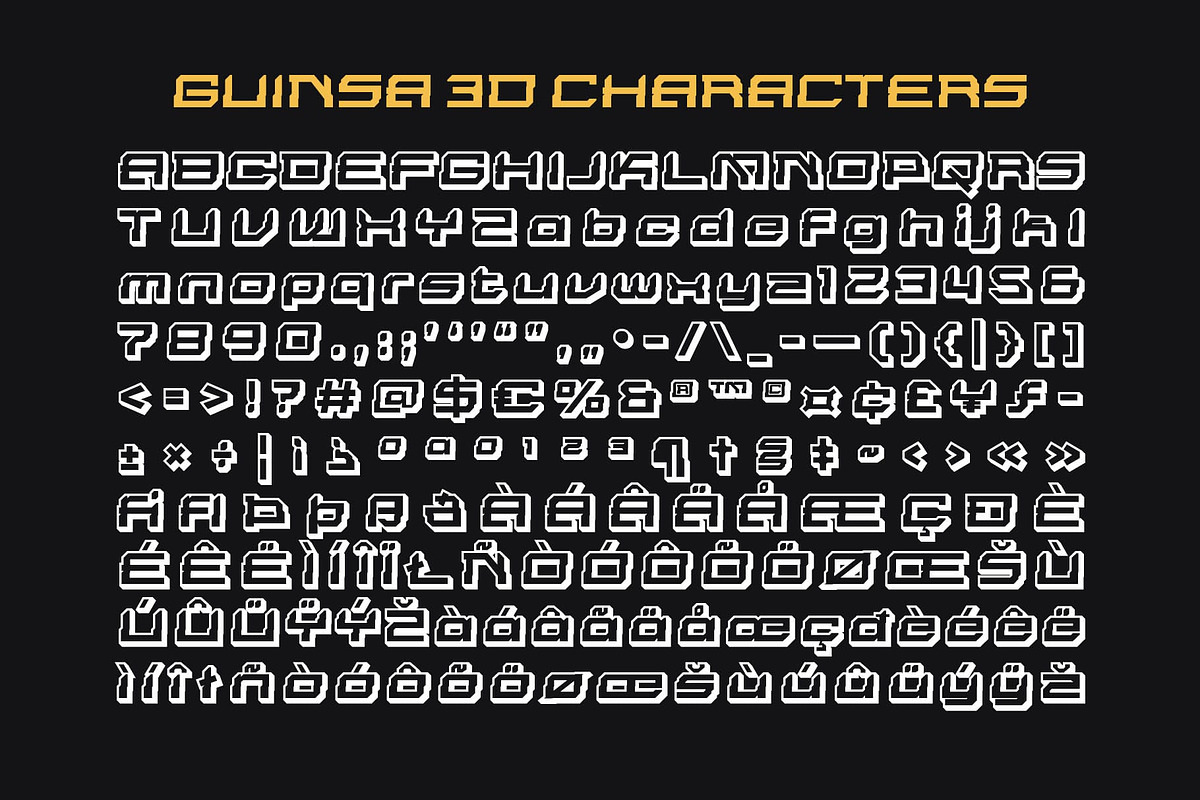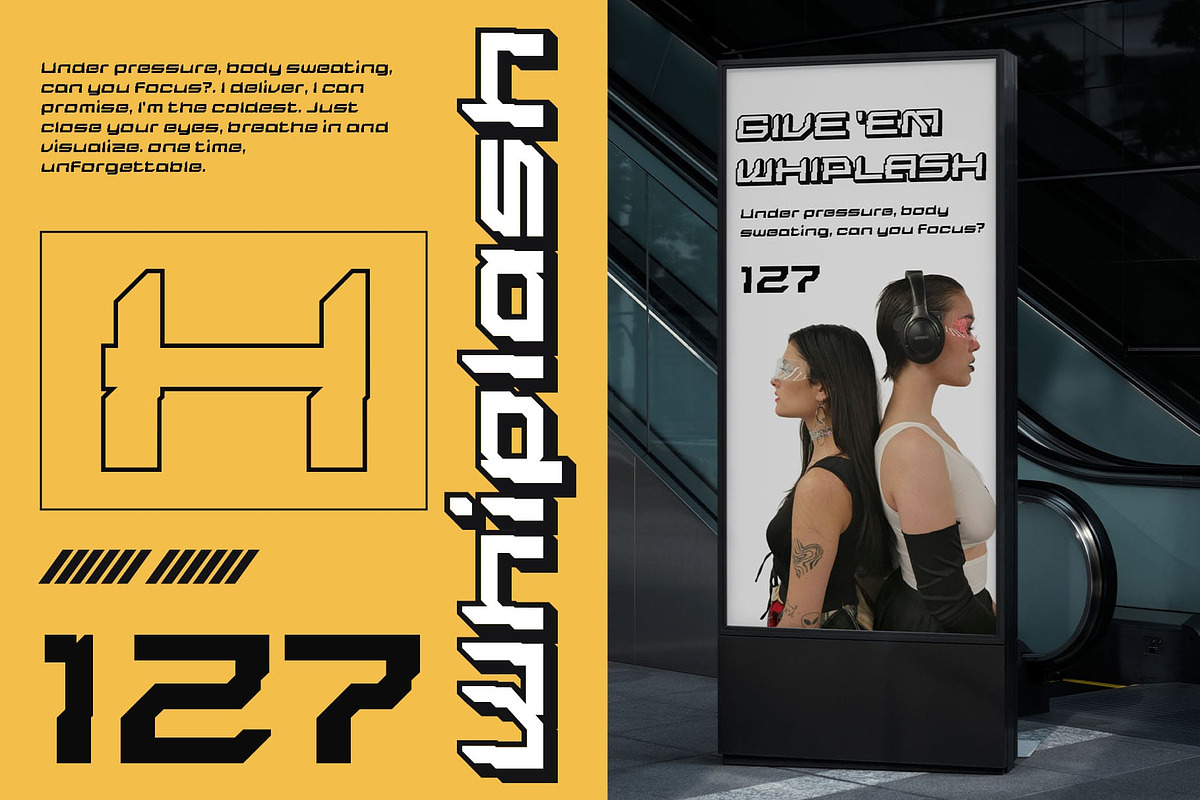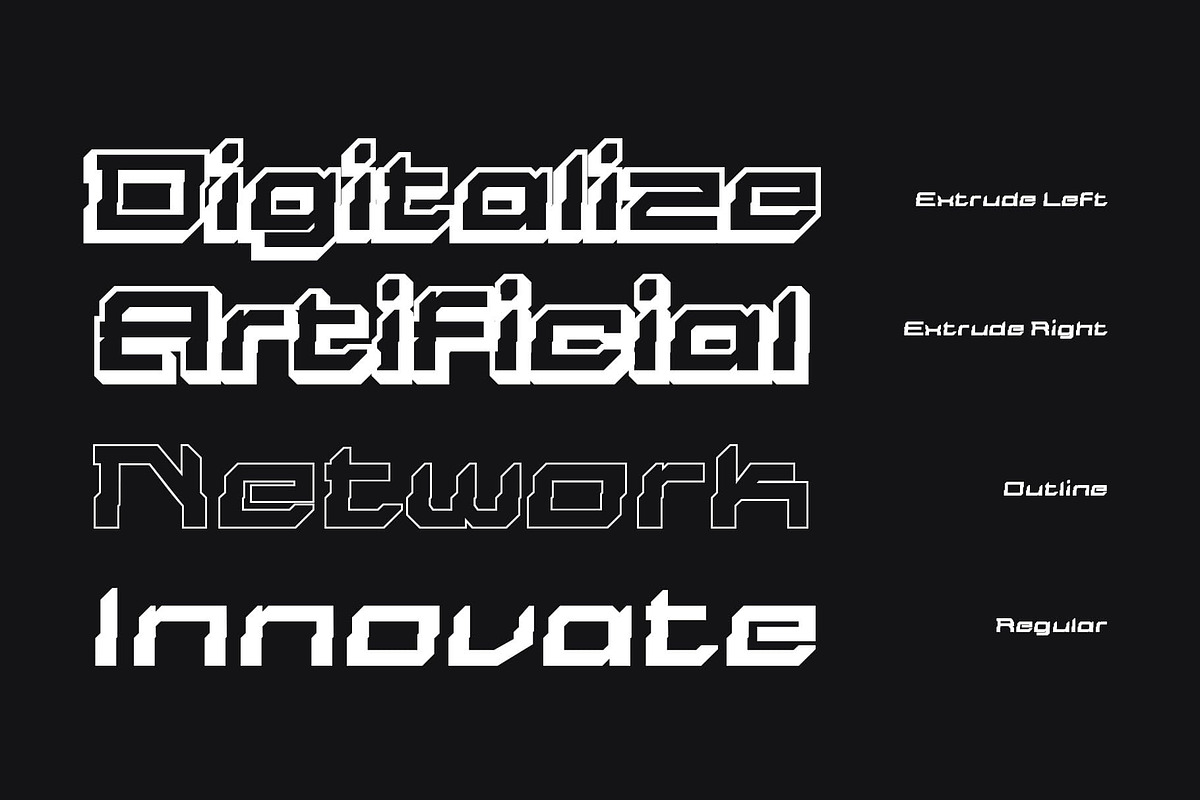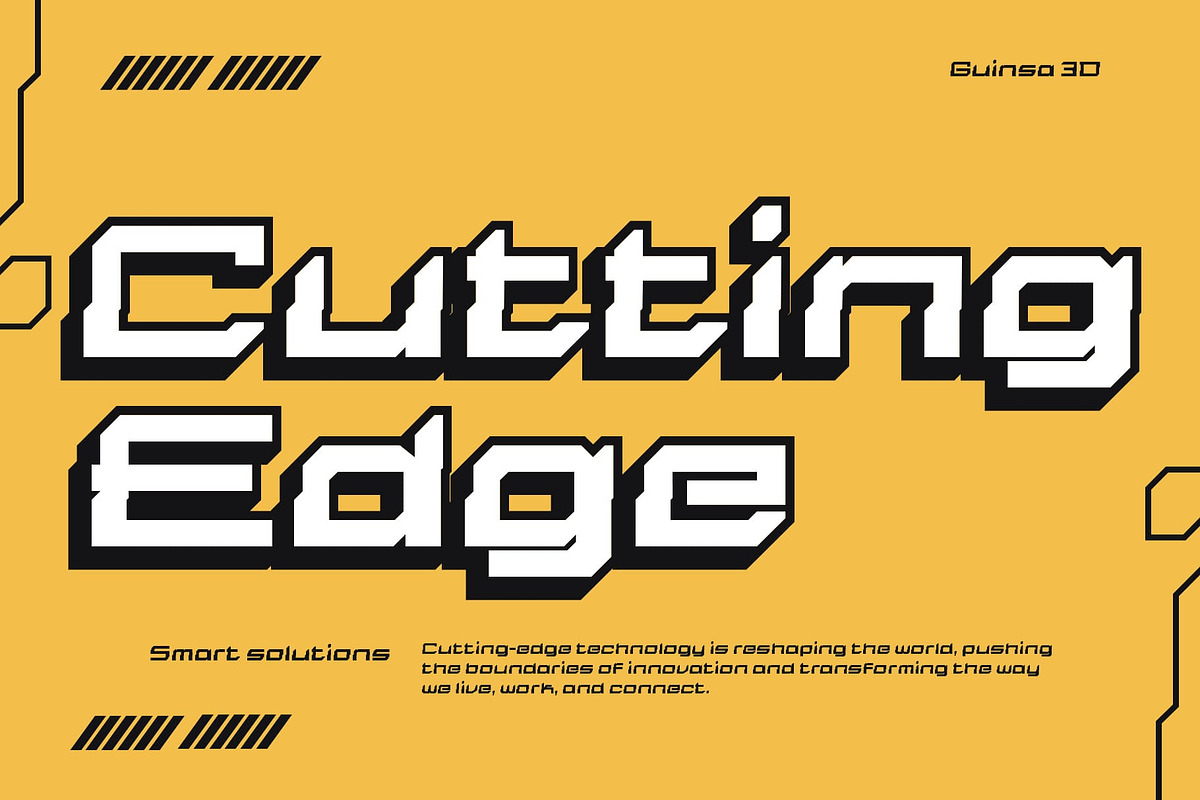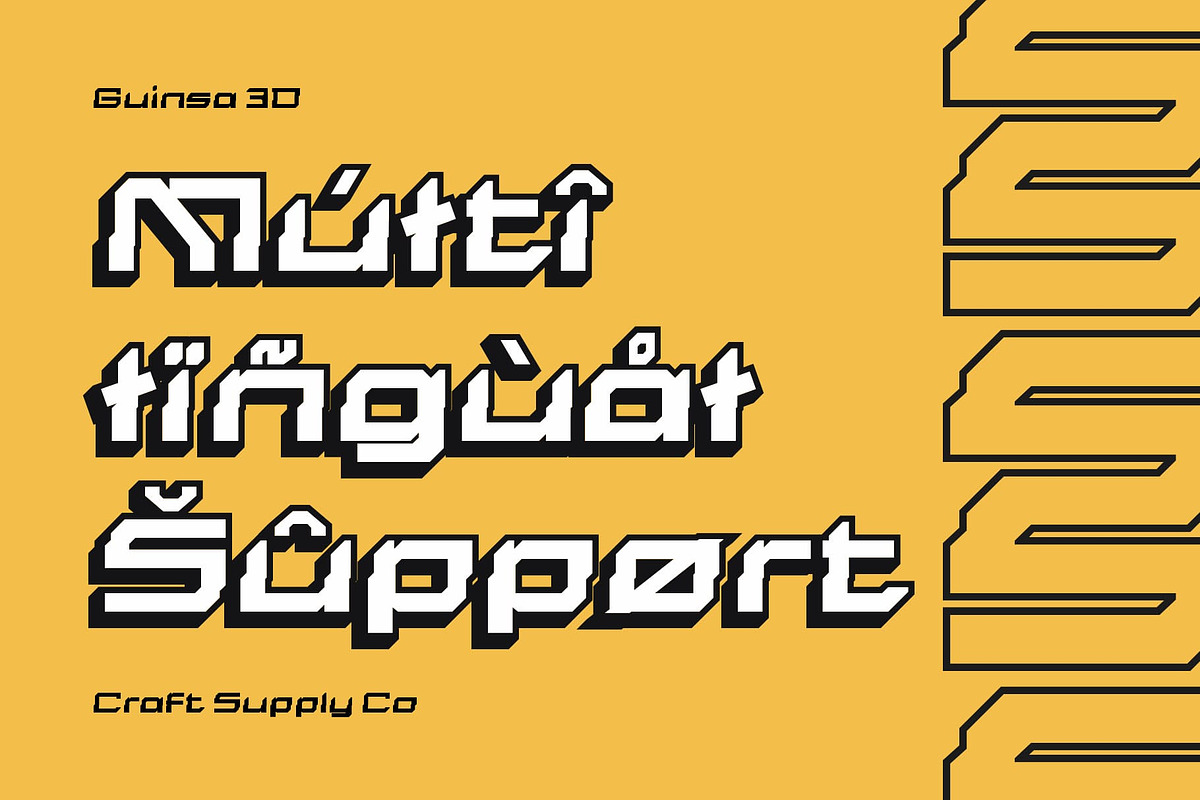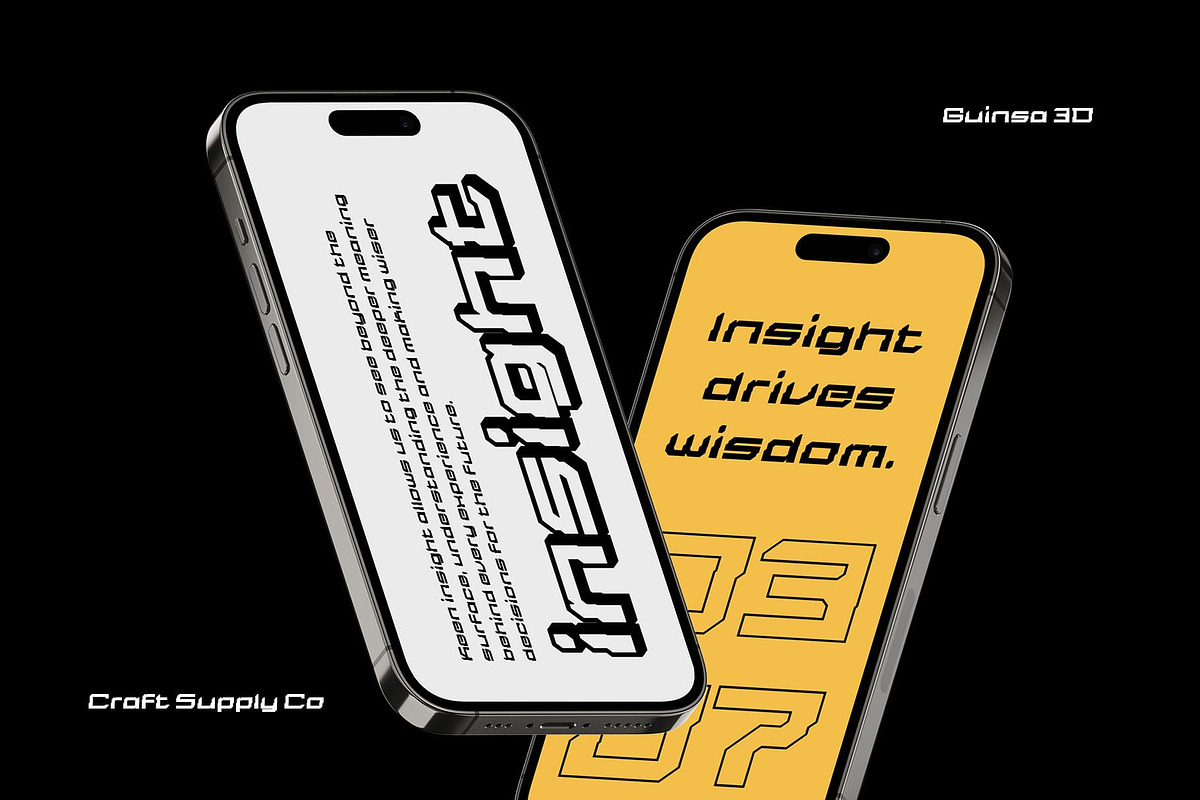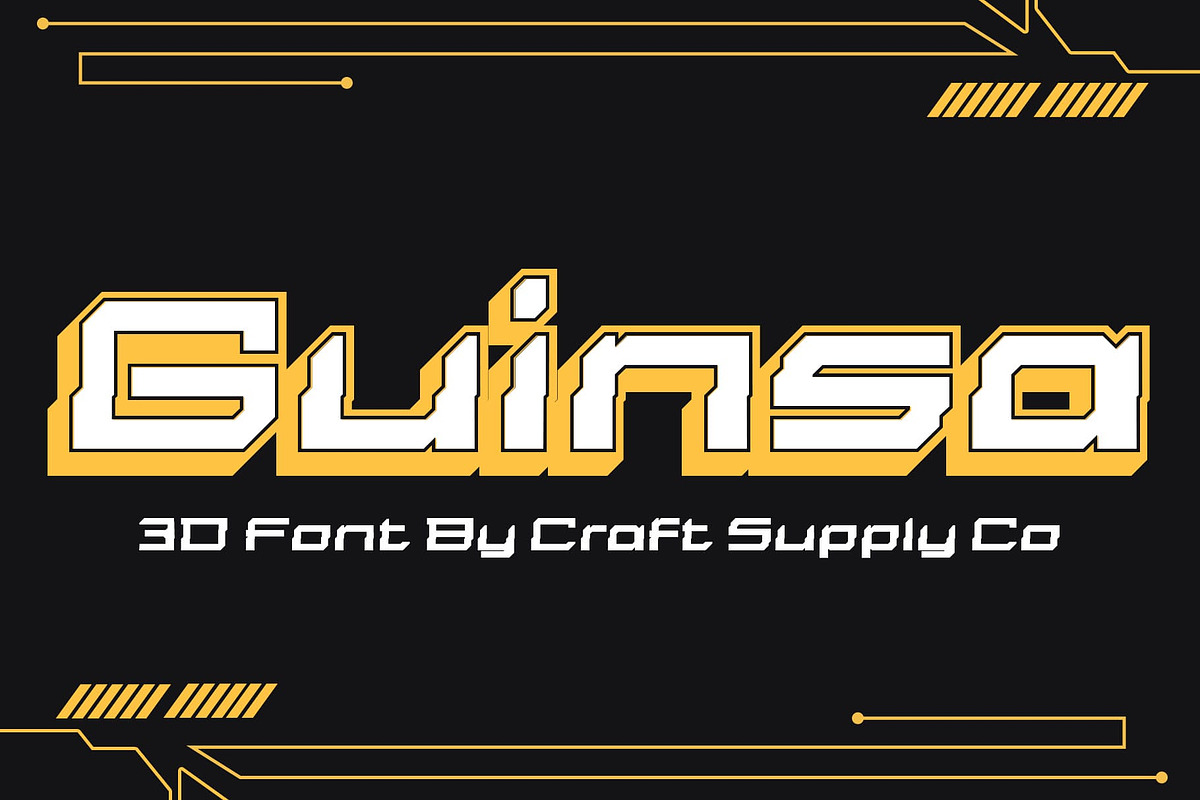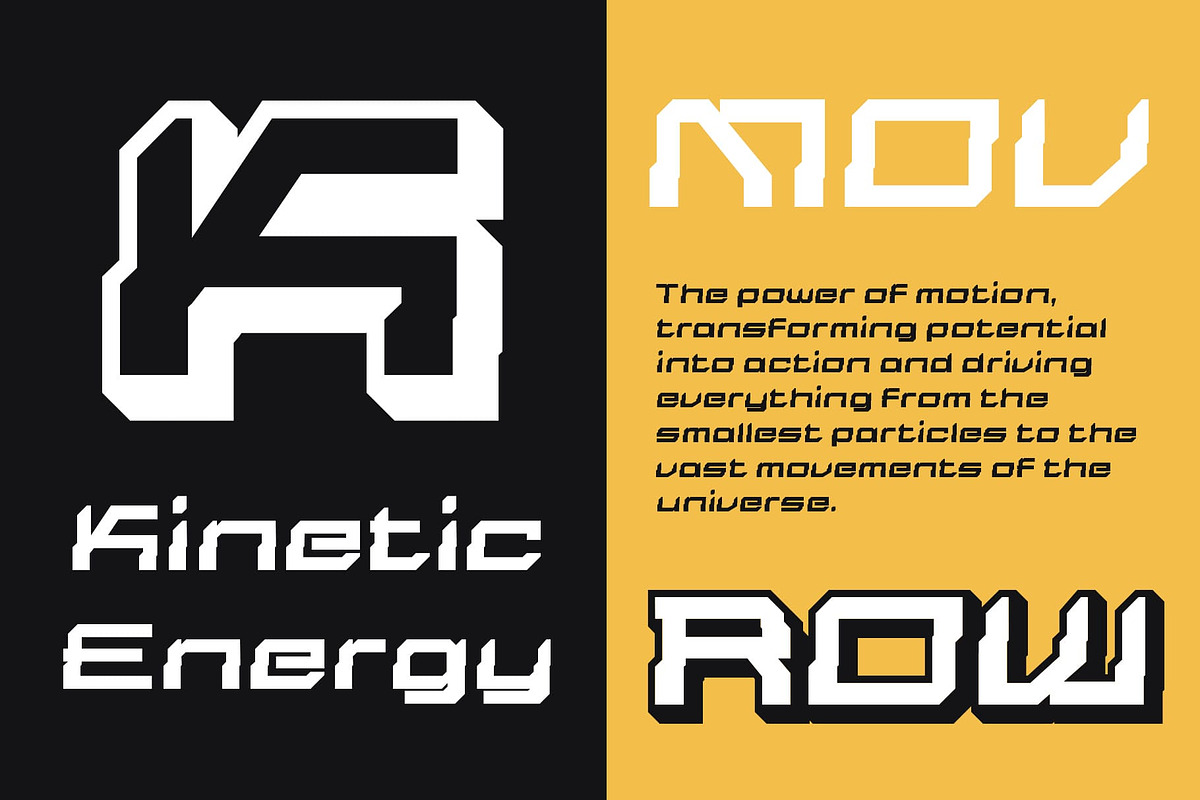
Guinsa 3D
Guinsa 3D Font – Bold Dimensions of the Future
Techno Futuristic Display Font with 3D Effect Guinsa 3D is a modern display font designed with a techno and futuristic aesthetic. Featuring precise, geometric, and sharp letterforms, it embodies a sleek and innovative look. The added 3D effect injects depth and motion into the design, creating a dimensional and dynamic appearance that stands out in digital and print formats alike.
Sharp Geometric Forms for a Cutting-Edge Look Each character in Guinsa 3D is constructed with clean lines and angular precision, delivering a highly structured and bold feel. Its geometric construction communicates a sense of control, clarity, and technical sophistication—making it a natural fit for contemporary and tech-forward designs.
3D Effect for Dynamic Visual Energy The integrated 3D styling elevates the font with a futuristic sense of space and form. This layered visual depth brings life and movement to headlines and titles, giving your design a bold presence and eye-catching energy—especially effective in gaming visuals, digital interfaces, and tech branding. Guinsa 3D shines in projects that require a forward-thinking edge.
Versatile, Bold, and Made for Impact While designed as a display font, Guinsa 3D remains versatile across formats. Its bold form ensures high readability, while its futuristic flair adds instant character. Perfect for logos, posters, UI displays, and bold typographic compositions, it brings a visionary touch to every design it inhabits.
- Guinsa Regular
- Guinsa Outline
- Guinsa Extrude Right
- Guinsa Extrude Left